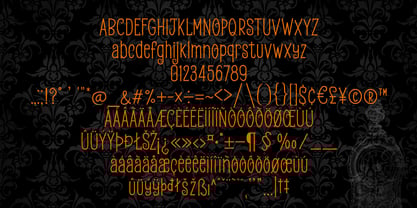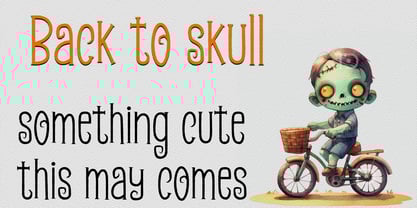
Raw Halloween
by Tanon Design
The Raw Halloween Font Family was designed by Tanonnat Kaeoket and published by Tanon Design. Raw Halloween contains 1 styles.
Introducing RAW PAINT BRUSH font Raw Halloween Font is a Spooky Halloween fonts. It is perfect choice for any project. Perfect for party invitations, spooky signage, and bewitching crafts.  Let your words cast a bewitching spell this Halloween! Scary, weird and creepy. It will add a touch of horror to any design project! This font also come with Multi-Lingual Support. Enjoy!
Designers: Tanonnat Kaeoket
Publisher: Tanon Design
Foundry: Tanon Design
Design Owner: Tanon Design